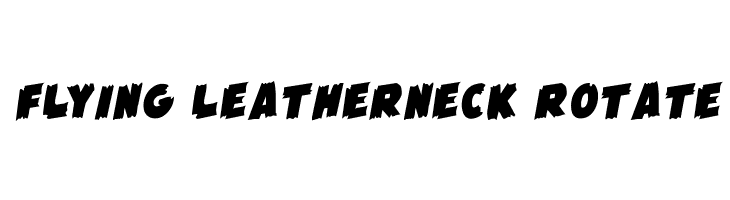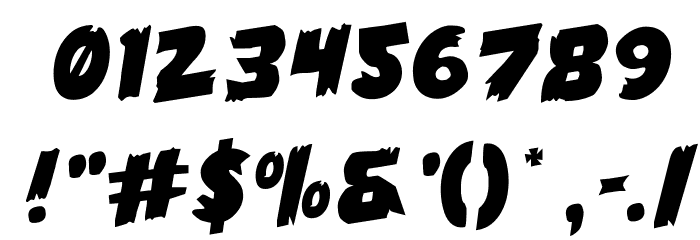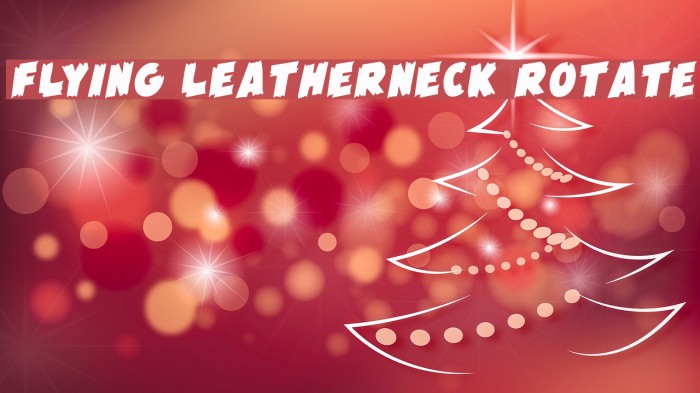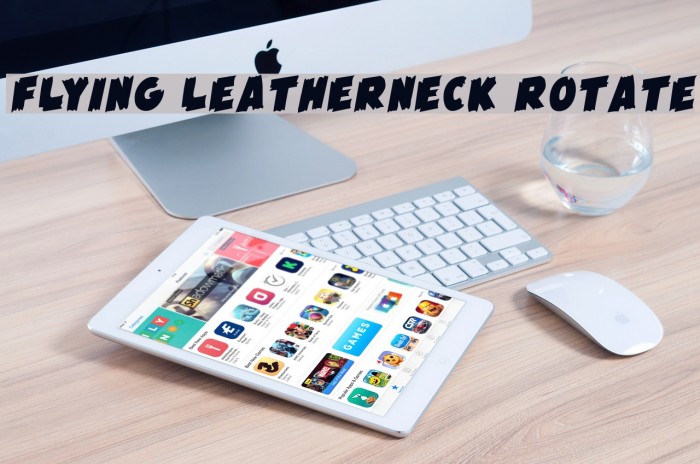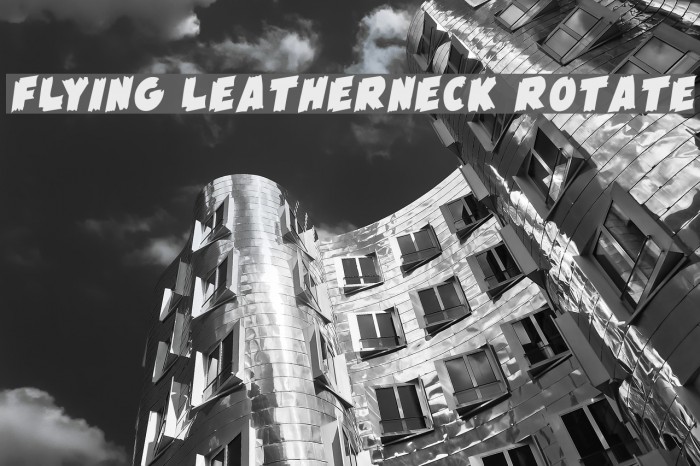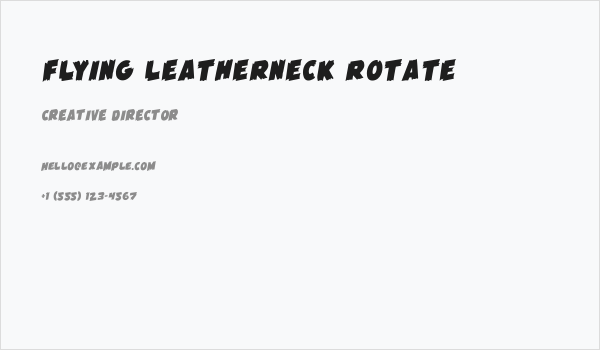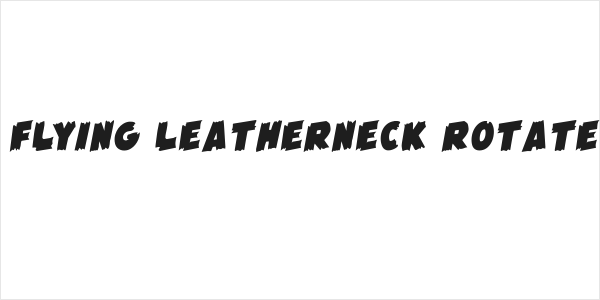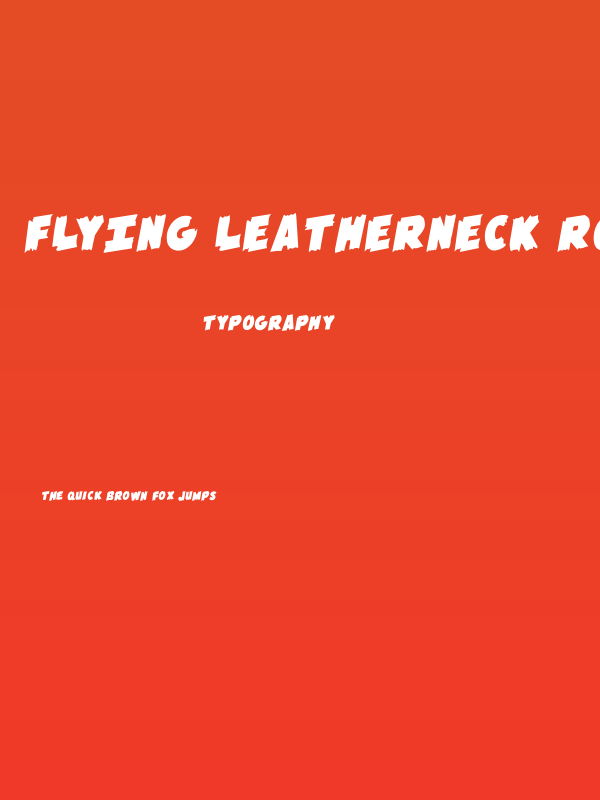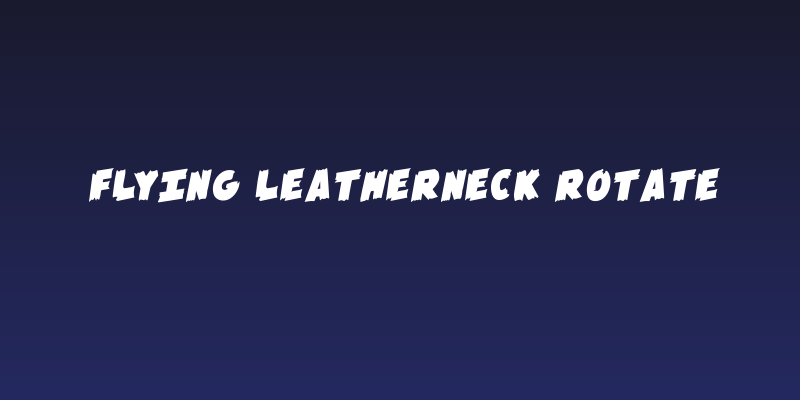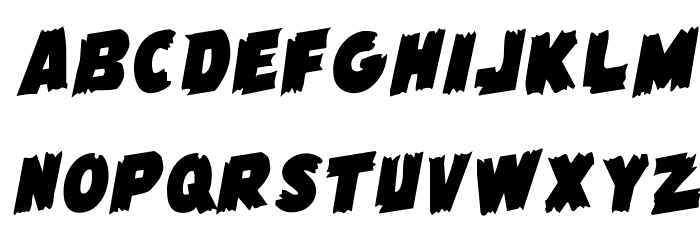
Flying Leatherneck Rotate Font
Flying Leatherneck Rotate Description
This font features bold, jagged edges and a dynamic, energetic style. The letters are heavily stylized with sharp, angular cuts, giving them a rugged and aggressive appearance. The uppercase and lowercase letters maintain a consistent design, with a slight slant that adds to the sense of motion and intensity. The numbers and special characters follow the same bold and edgy aesthetic, ensuring a cohesive look across all glyphs. This font is ideal for projects that require a strong, impactful visual presence.
| Proposed Projects | Ideal for sports branding, action movie posters, video game titles, and any project needing a bold, energetic typeface. |